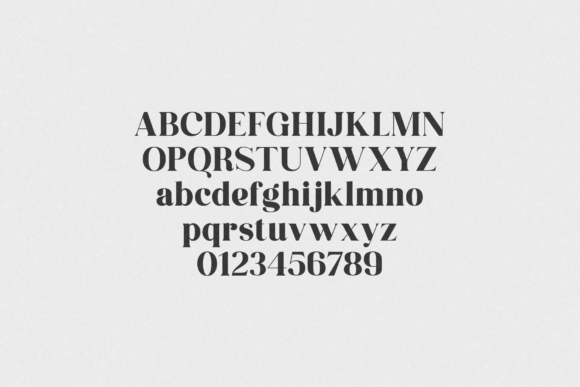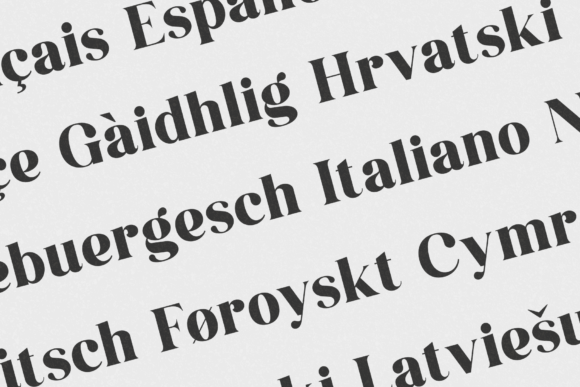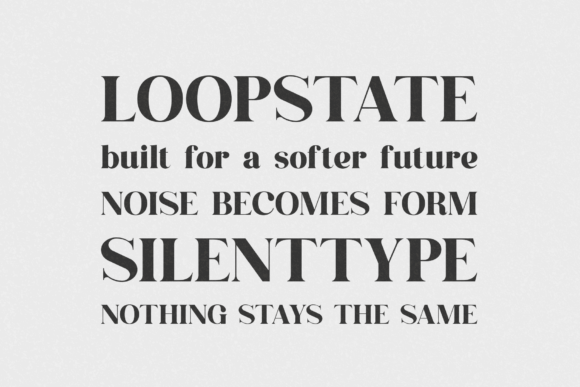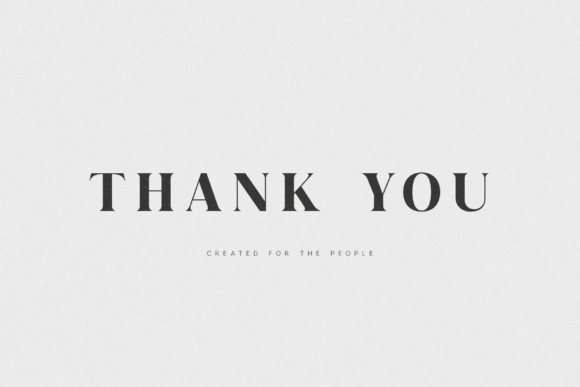
Introducing Consumer Type: A Bold and Expressive Serif Font for Impactful Headlines
In the world of typography, a font can make or break the visual identity of a brand. For designers and crafters looking for a bold and expressive serif font to create strong headlines and impactful visual statements, Consumer Type is an excellent choice. This stunning typeface is designed to blend classic serif structure with modern commercial appeal, making it perfect for a wide range of applications.
What is Consumer Type?
Consumer Type is a bold, expressive serif font that exudes confidence and personality. Its confident letterforms, rounded terminals, and slightly retro editorial character make it an ideal choice for headlines, magazines, posters, branding, advertising, packaging, and editorial layouts. This font is built to stand out, creating a warm yet authoritative tone that is perfect for consumer-facing design, storytelling, and bold typographic systems.
Key Features of Consumer Type
- Bold and Expressive: Consumer Type is a bold and expressive serif font designed to make a statement. Its confident letterforms and rounded terminals give it a unique and distinctive look.
- Classic Serif Structure: This font blends classic serif structure with modern commercial appeal, making it perfect for a wide range of applications.
- Retro Editorial Character: Consumer Type has a slightly retro editorial character that adds a touch of nostalgia and sophistication to any design.
- Warm yet Authoritative Tone: The weight and proportions of Consumer Type create a warm yet authoritative tone that is perfect for consumer-facing design and storytelling.
Applications of Consumer Type
Consumer Type is a versatile font that can be used in a wide range of applications, including:
- Headlines: Consumer Type is perfect for creating bold and eye-catching headlines that grab attention.
- Magazines: This font is ideal for magazine titles, headings, and subheadings.
- Posters: Consumer Type is a great choice for posters, flyers, and other promotional materials.
- Branding: This font can be used to create a strong and memorable brand identity.
- Advertising: Consumer Type is perfect for creating bold and effective advertising campaigns.
- Packaging: This font can be used on packaging materials to create a strong and eye-catching design.
- Editorial Layouts: Consumer Type is ideal for editorial layouts, including books, newspapers, and online publications.
Why Choose Consumer Type?
There are many reasons why designers and crafters should choose Consumer Type for their next project. Here are a few:
- Unique and Distinctive: Consumer Type has a unique and distinctive look that sets it apart from other fonts.
- Versatile: This font can be used in a wide range of applications, from headlines to packaging.
- Easy to Read: Consumer Type is easy to read, even at small sizes, making it perfect for body text and captions.
- High-Quality: This font is designed to high-quality standards, ensuring that it will look great in any design.
Consumer Type is a bold and expressive serif font that is perfect for designers and crafters looking to create strong headlines and impactful visual statements. With its confident letterforms, rounded terminals, and slightly retro editorial character, this font blends classic serif structure with modern commercial appeal. Its versatility, ease of use, and high-quality design make it an excellent choice for a wide range of applications. Whether you’re working on a magazine, poster, branding campaign, or editorial layout, Consumer Type is a great choice.